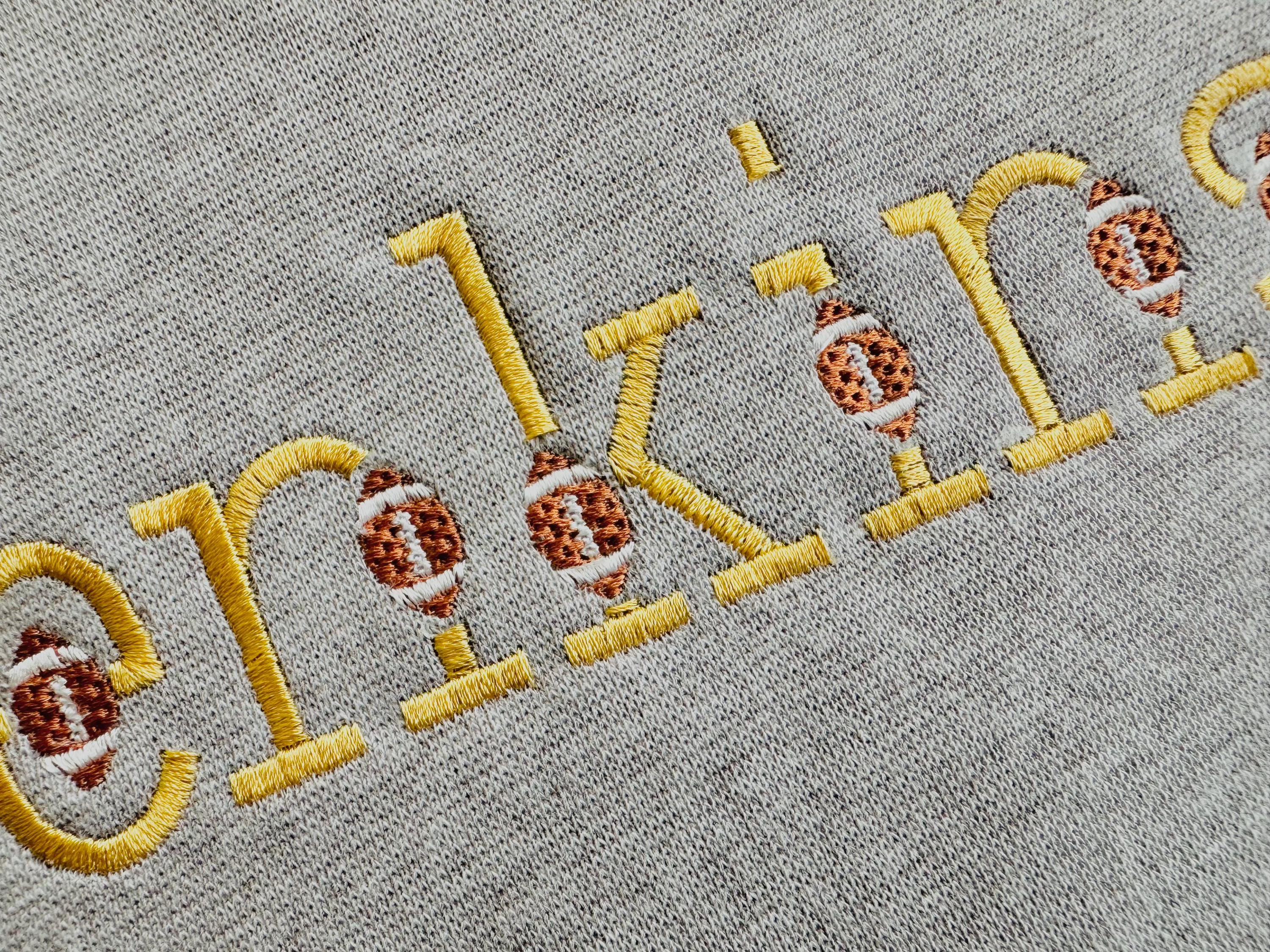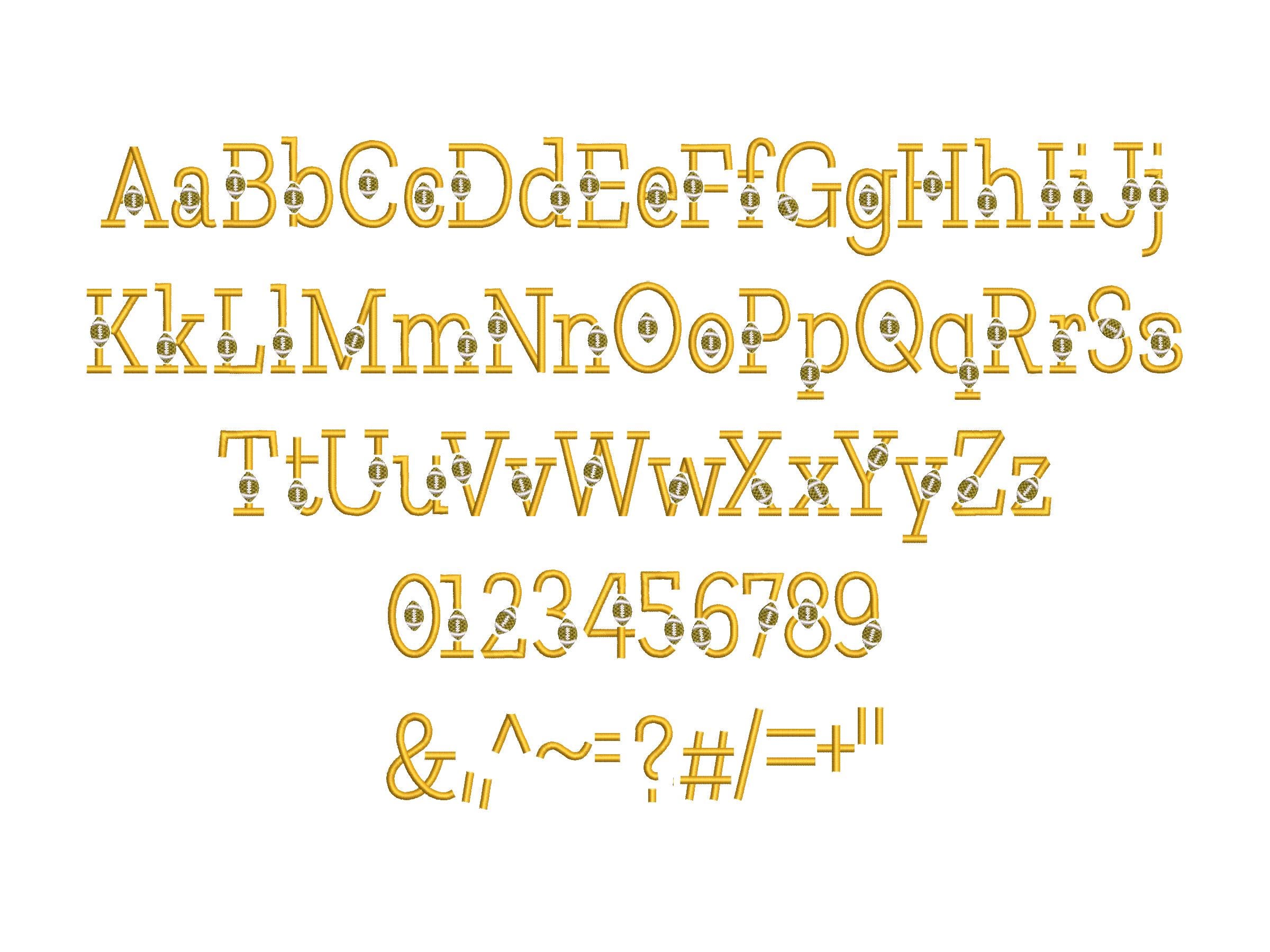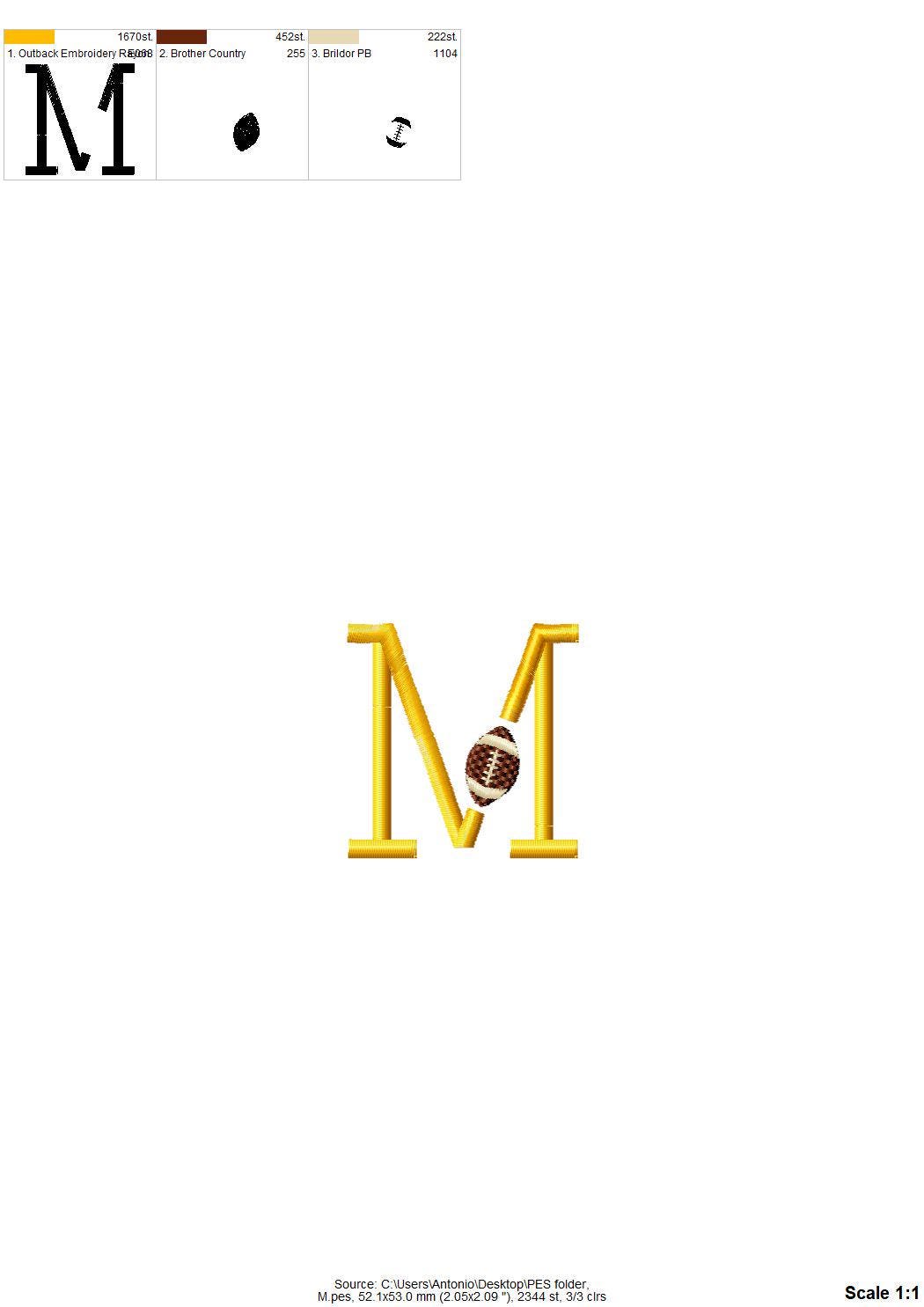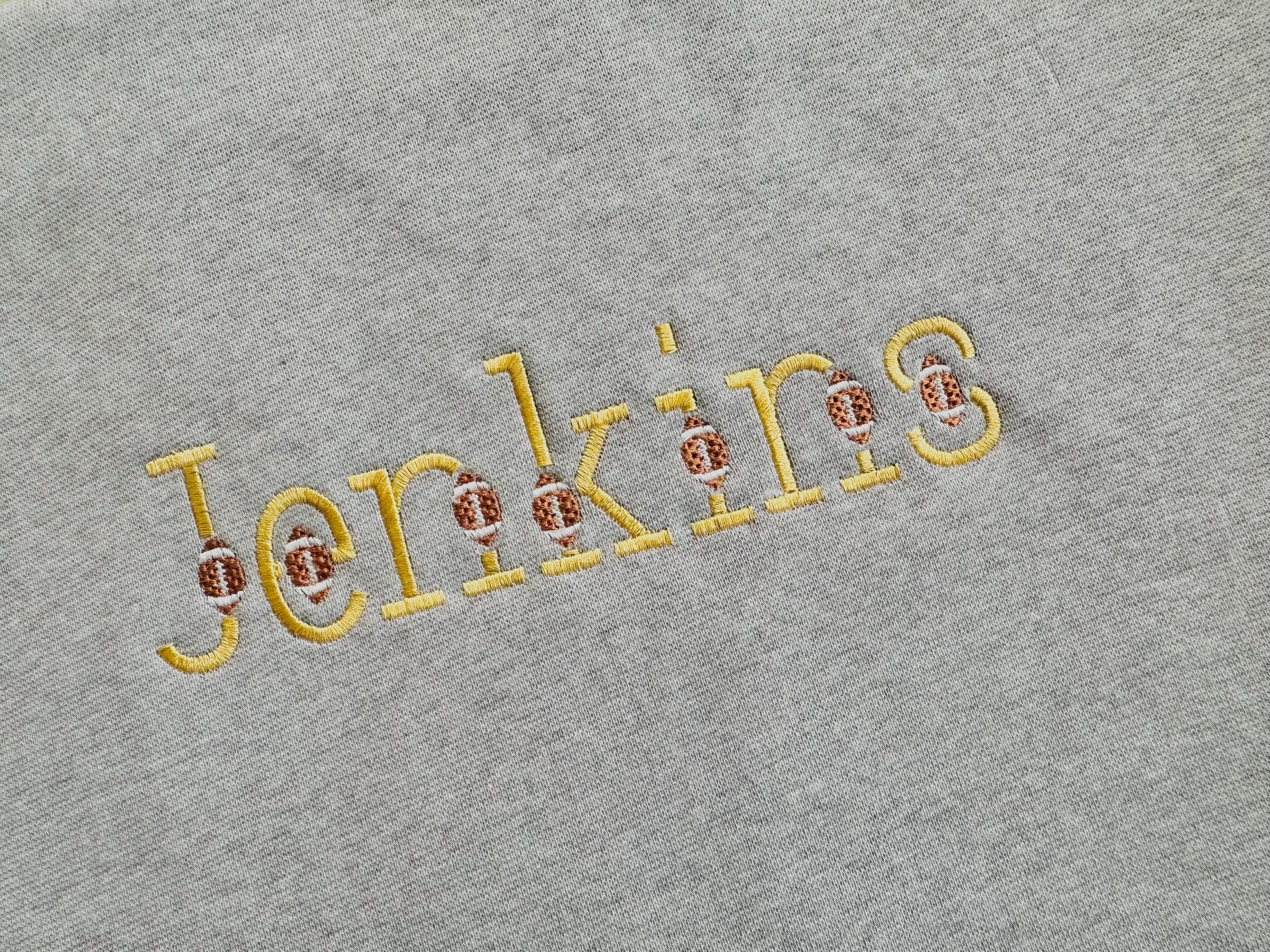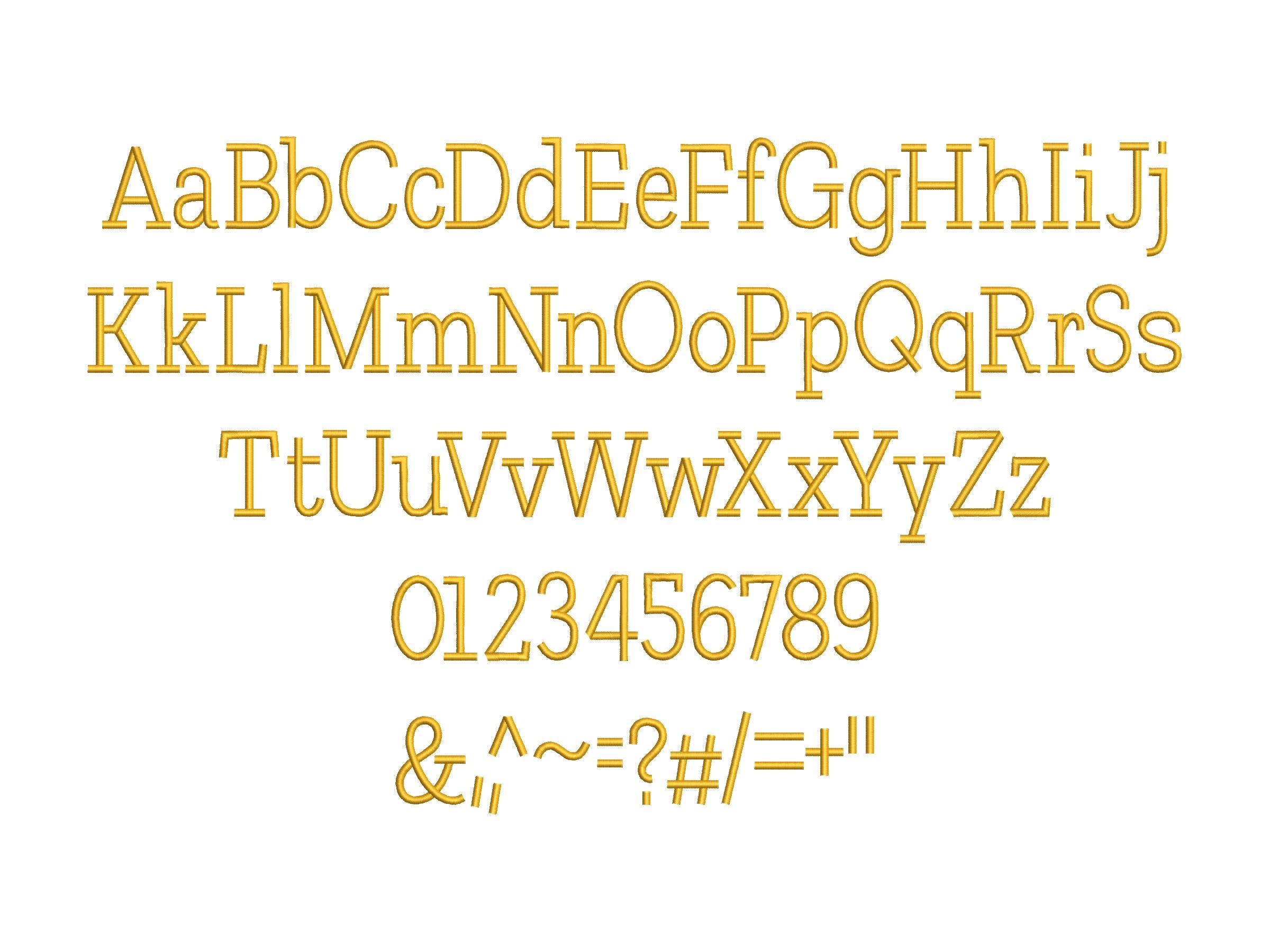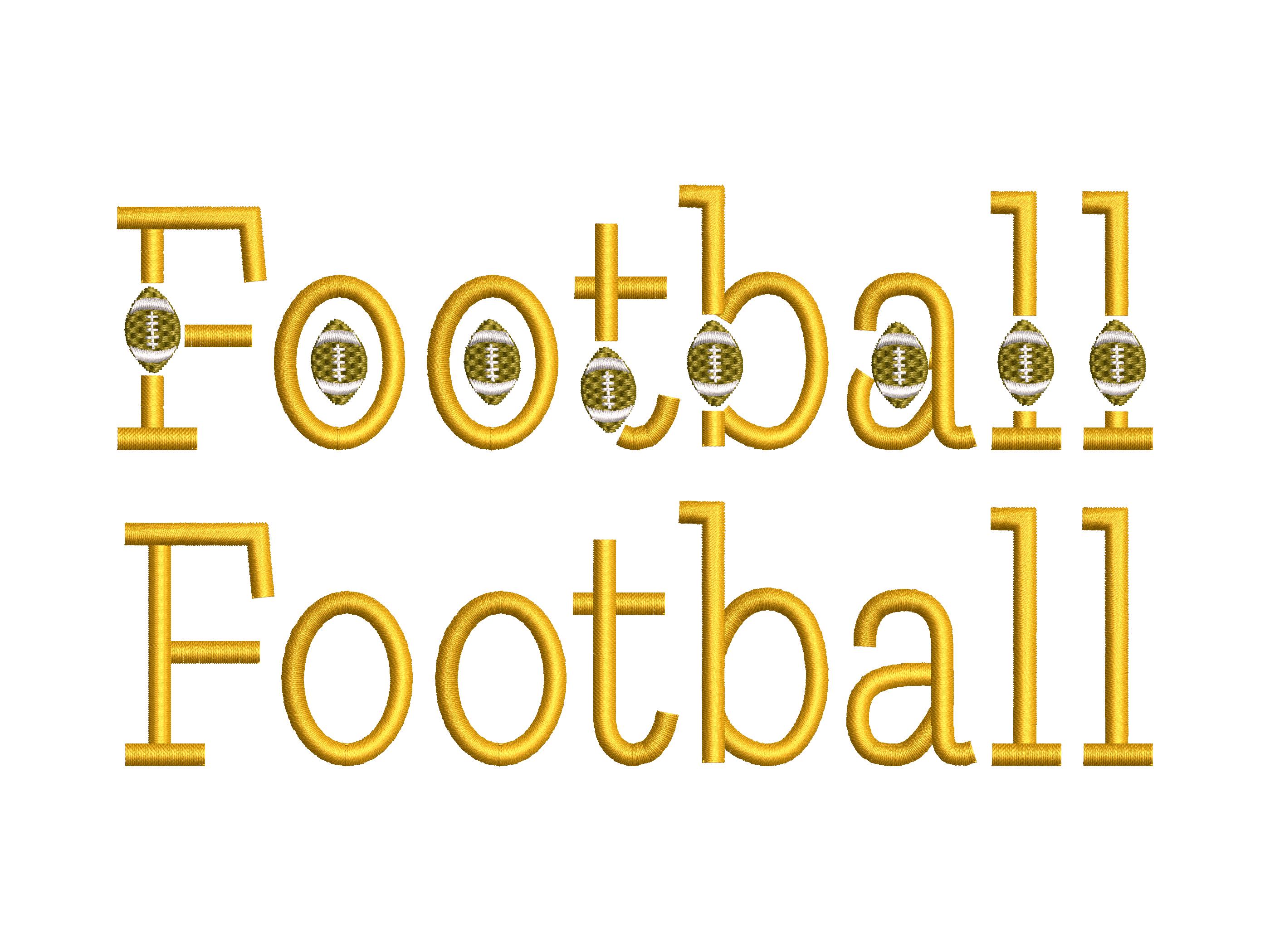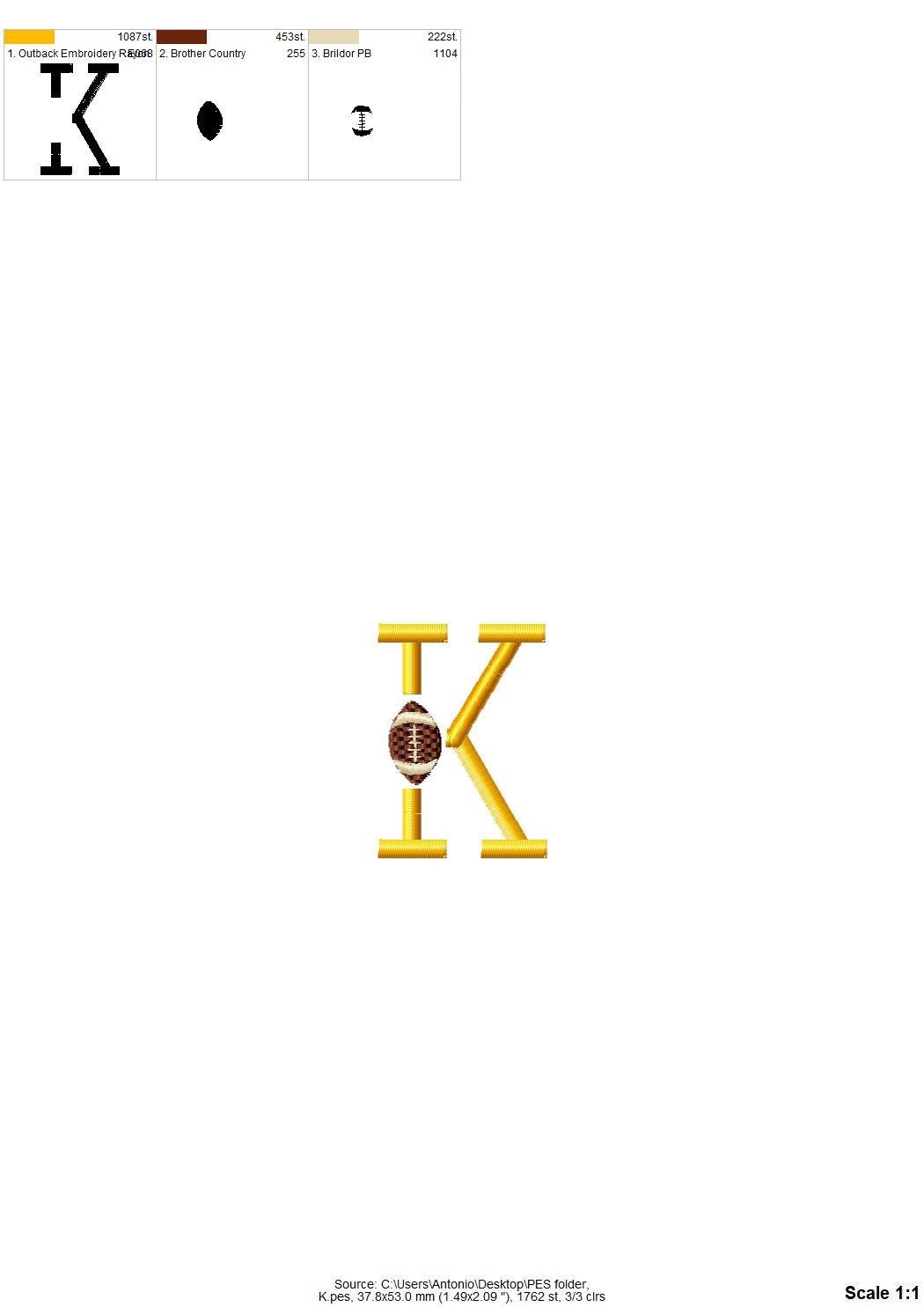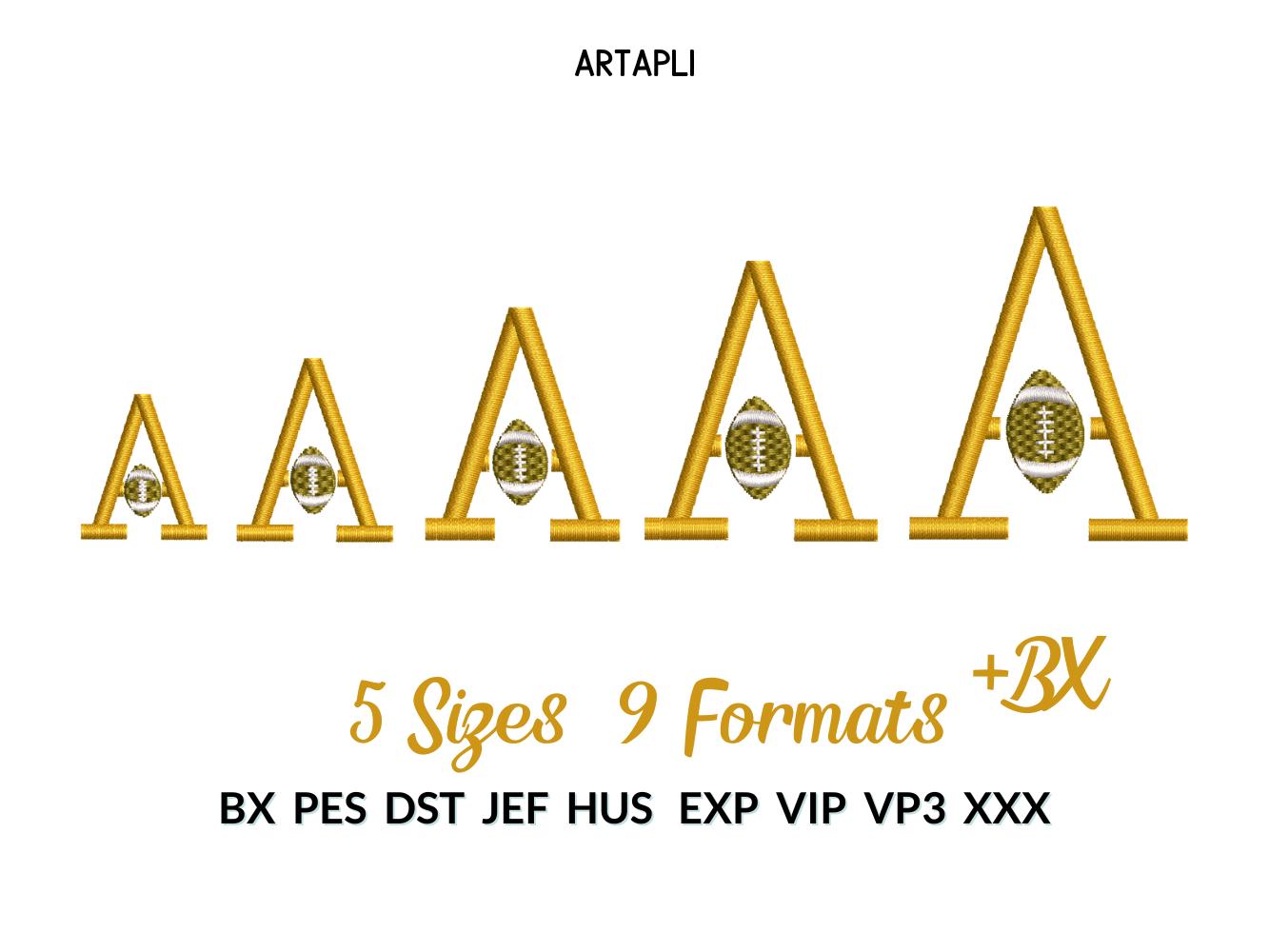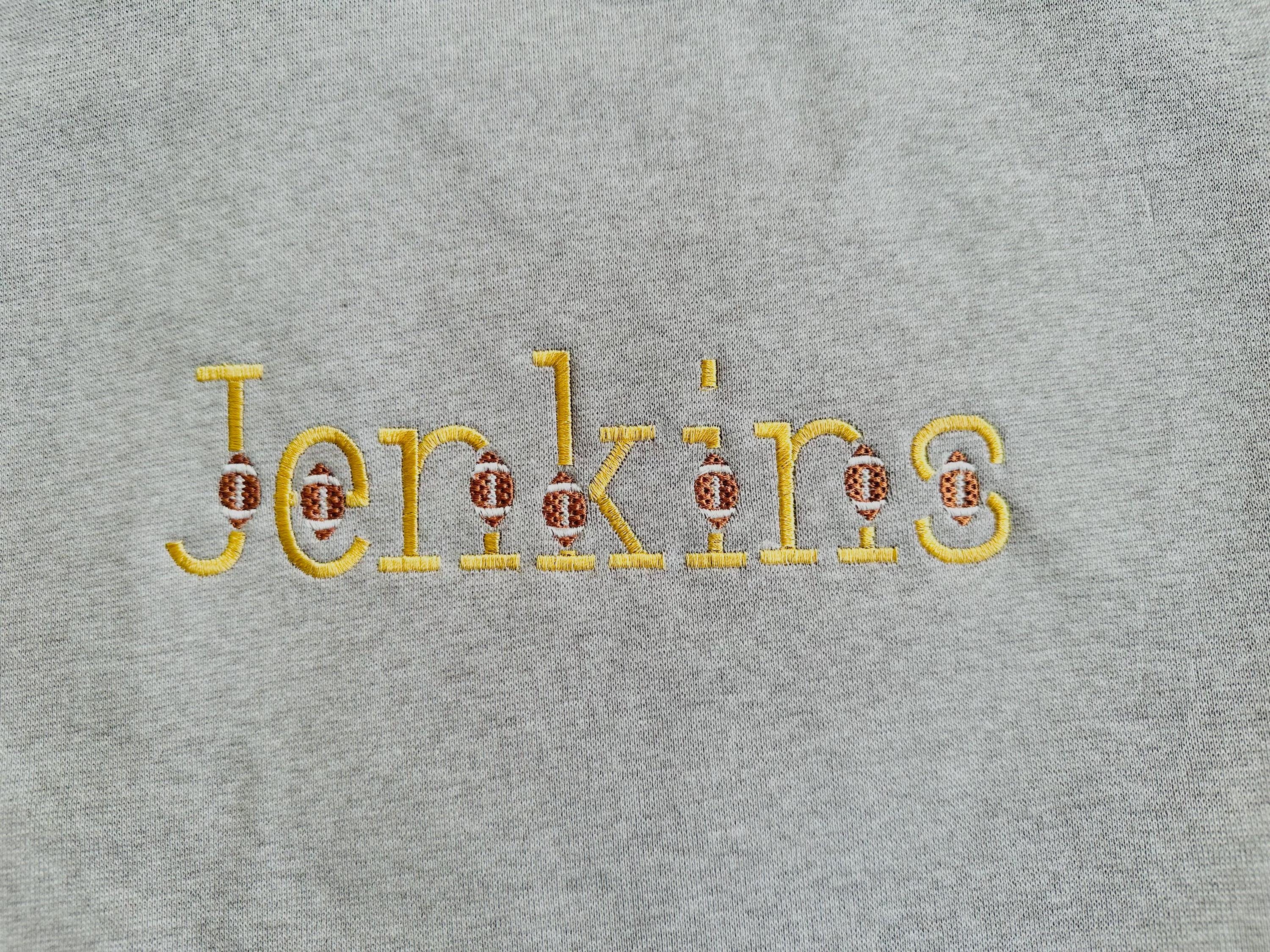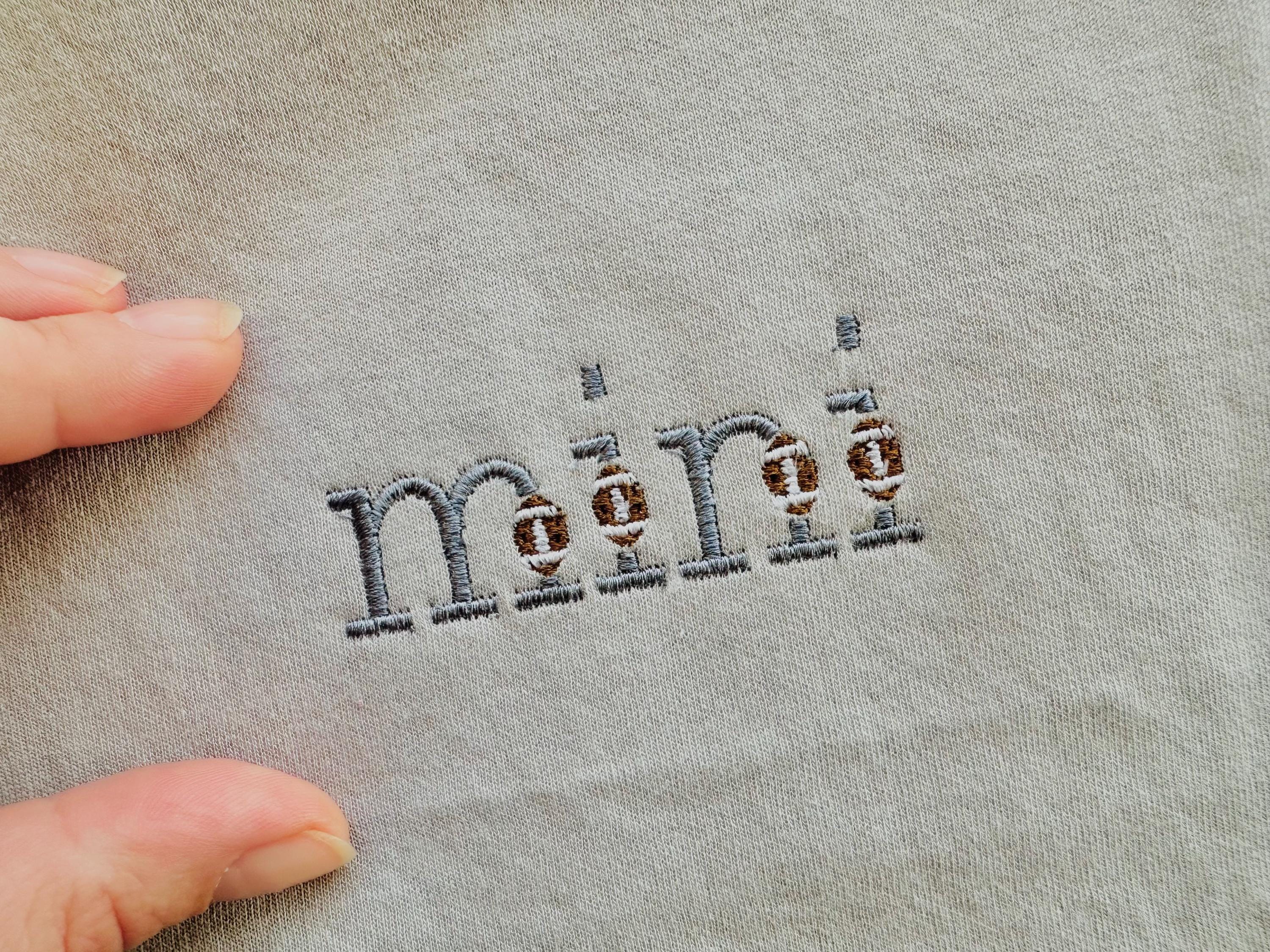
Satin stitch Football Font SET of 2 Sports block alphabet Football and Simple machine embroidery designs boys dad monogram multiple sizes
Included 2 fonts:
* satin stitch font with football
* satin stitch font
Whole alphabet uppercase and lowercase letters Aa-Zz, numbers 0-9, and punctuation.